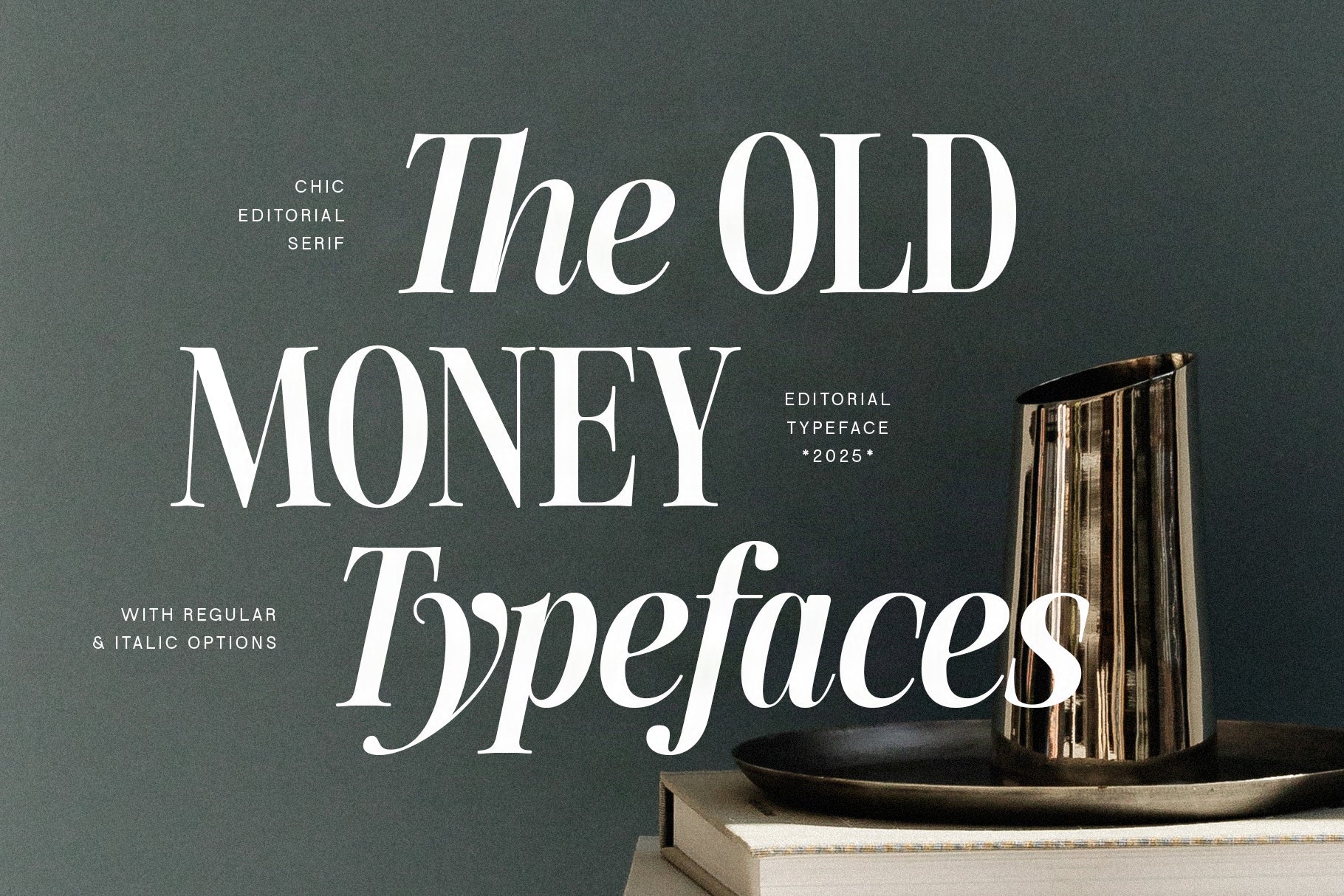
The Old Money Fonts in the SilverStag Catalog — and Why That Aesthetic Still Matters
There's a certain kind of elegance that doesn't follow trends. It doesn't need to. It just sits there, quietly confident, doing exactly what it was always meant to do.
That's old money. And that's what these five typefaces have in common.
The "old money aesthetic" has been having a cultural moment for a while now — muted palettes, quiet luxury, the kind of design that signals taste without shouting about it. But as a type designer, I'd argue this sensibility never really went anywhere. It just took the internet a while to catch up.
Here are the five SilverStag Type Foundry typefaces that live firmly in that world.
SLTF The Silver Editorial — The One That Started It All
If there's an OG old money typeface in the catalog, it's this one.
The Silver Editorial was never designed to chase a trend. High contrast, deeply calligraphic serifs, the kind of letterforms that feel like they belong on the cover of a magazine that's been printing since 1952. There's a tension in it — part editorial restraint, part quiet drama — that makes it feel genuinely inherited rather than designed to look that way.
18 styles, Roman and Italic across every weight. It works at display sizes where every curve gets the attention it deserves, and it holds up beautifully in editorial layouts where sophistication is the only brief.
If your project needs to feel expensive without trying, start here.
SLTF Netsera — Calligraphic, Unhurried, a Little Untamed
Netsera is the one that whispers.
It's a calligraphic serif with a natural fluidity that's hard to manufacture — the kind of thing that comes from understanding how letterforms actually move, not just how they look at rest. There's warmth in it, but also a certain composure. The way it sits on a page feels considered rather than decorated.
Currently available in Regular and Italic, with a full family expansion on the way. It's already found its place in some beautifully restrained branding work — the kind of projects where the typeface does the heavy lifting and the designer lets it.
Old money doesn't over-explain itself. Neither does Netsera.
SLTF Arcilla — When a Full Family Gets It Right
Arcilla is the full picture.
18 styles plus variable fonts, all built around the same warm calligraphic serif DNA — from the most delicate Thin all the way through to a Black that still somehow manages to feel refined. That's the hard part. A lot of heavy serif weights lose their elegance under the pressure of scale. Arcilla doesn't.
The calligraphic origins stay visible at every weight, which gives the whole family a coherence that's rare. You can mix a Light heading with a Bold pull quote and it all still reads as one considered decision.
For branding projects that need range without losing character, Arcilla is the answer.
SLTF French Voyager — The Romantic One
The name says everything, and the typeface delivers on it.
French Voyager carries that specific energy of European elegance — unhurried, a little nostalgic, with the kind of refined personality that suggests old hotels, monogrammed luggage, and Sunday editions of newspapers that still matter. There's romance in it, but it's never sentimental. It knows exactly what it is.
For packaging, editorial, fashion branding, or any project where the word "chic" appears in the brief — this is where you go first.
SLTF The Roman Edition — Classical Roots, Contemporary Presence
The Roman Edition is the most architecturally grounded typeface in this group.
Where the others lean into calligraphic warmth or editorial drama, this one draws from something older and more structural — the classical Roman tradition that everything in type ultimately traces back to. But it's not a revival or a pastiche. It's a contemporary interpretation that carries that heritage without being weighed down by it.
Clean, confident, and built to last. The kind of typeface that looks as right on a brand identity in 2026 as it will in twenty years.
Why Old Money Design Still Resonates
The old money aesthetic endures because it's fundamentally about restraint — choosing quality over quantity, depth over decoration, longevity over trend-chasing. As a type designer, those are values I've always built toward, even when the brief never used those words.
These five typefaces weren't designed to look expensive. They were designed to be good. The elegance is just what good looks like when you give it enough time and care.